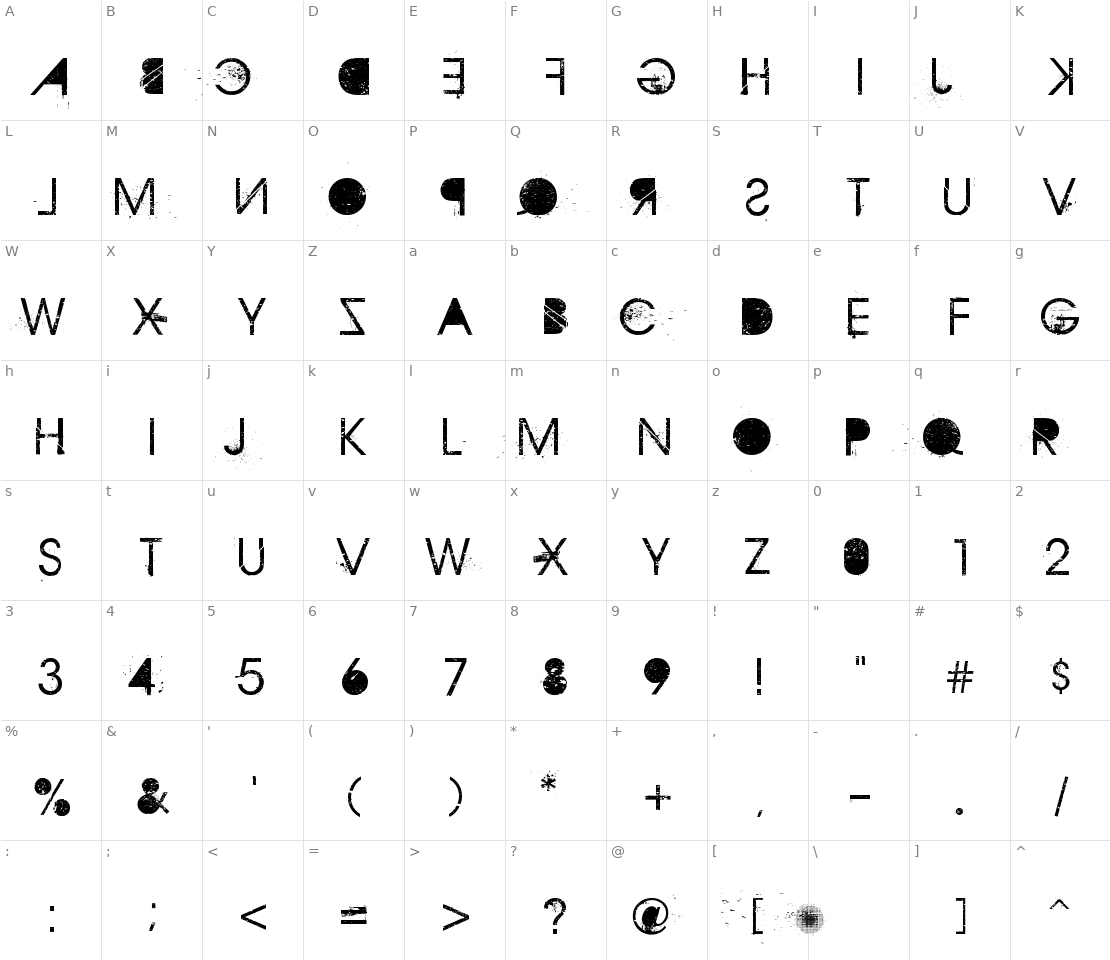
Aristotle Punk
Aristotle Punk is a bold, distressed display face from Andrew2 that smashes geometric structure together with gritty, worn-out textures. The letterforms have a blocky, deliberate build underneath all the surface damage, giving it more backbone than most grunge fonts. Built for headlines, posters, and urban-themed work where you want something that reads as raw and confrontational.